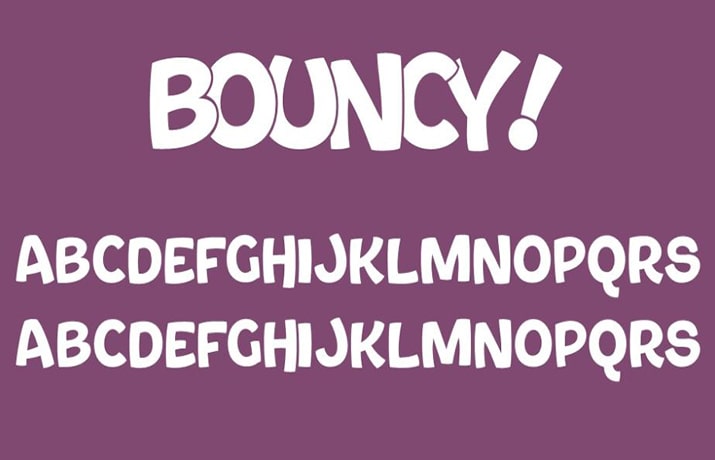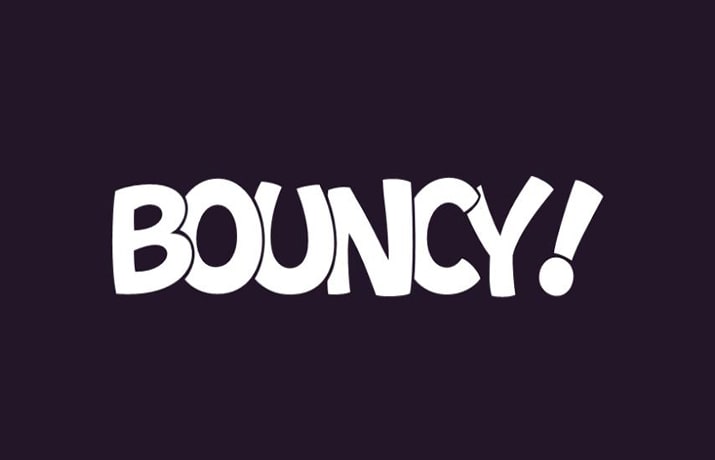
Bouncy Font is a playful display typeface created from hand-drawn ideas in the typeface. Bouncy Color is provided in five styles.
It was made by Mans Greback that is a font foundry Måns Grebäck a type designer and font creator specializing in script typography.
This humorous style of lettering has a cheerful, quirky personality and an optimistically bold appearance.
And it is built with advanced OpenType functionality and has a guaranteed top-notch quality. That’s why it helps to make them more creative and cool as compared to others fonts.
| Style: | Comic, Fancy, Display |
This remarkable font has a subtle texture that makes it applicable for many designs like comic book covers, movie posters, game graphics, various cards graphic, and sweet logos. It would also be a great idea to use it for game posters or movie posters.
The fancy font is provided in three styles: Thin, Black and Regular (Outlined) Also includes the cool Bouncy Color – an A-Z font with pre-set color and 3D-effect.